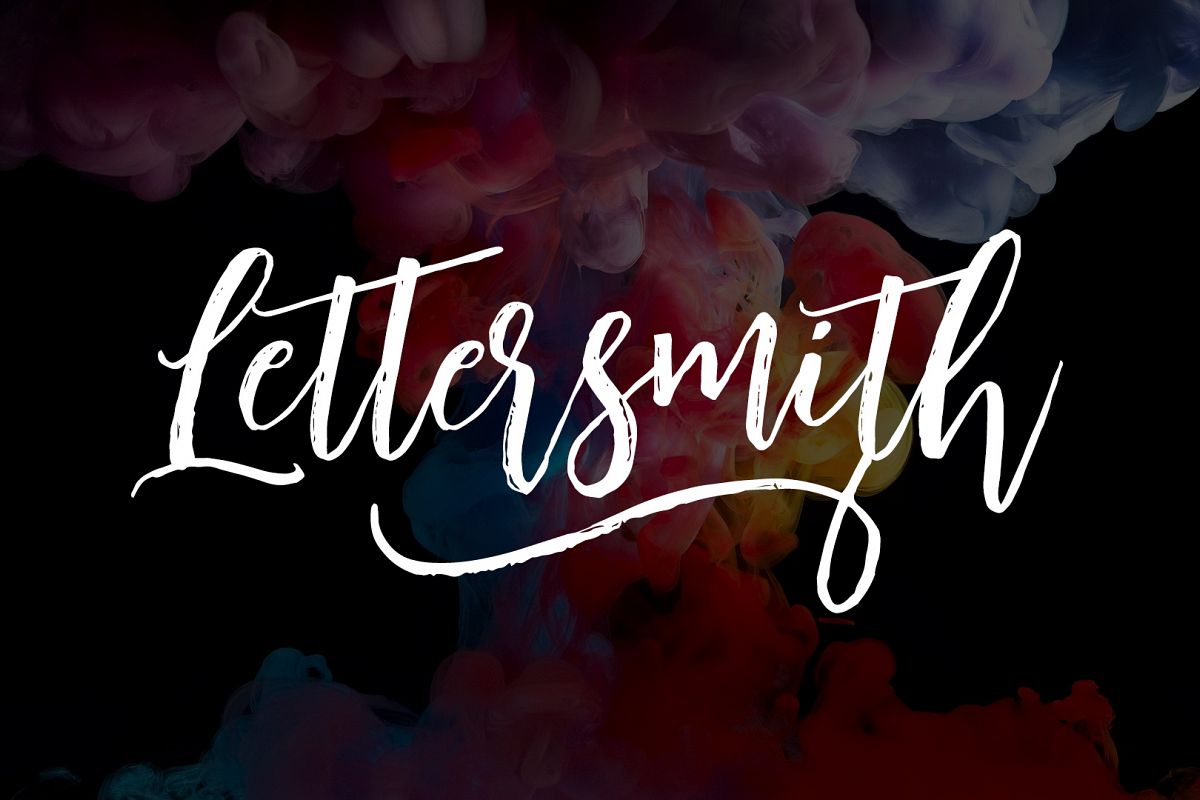
Lettersmith
Lettersmith Ornament
Lettersmith
LetterSmith, handwritten font with charm. With dry scratches and fast signature style.
LetterSmith is perfect for branding, clothing, card, product packaging projects or just as a stylish text overlay for any background images.